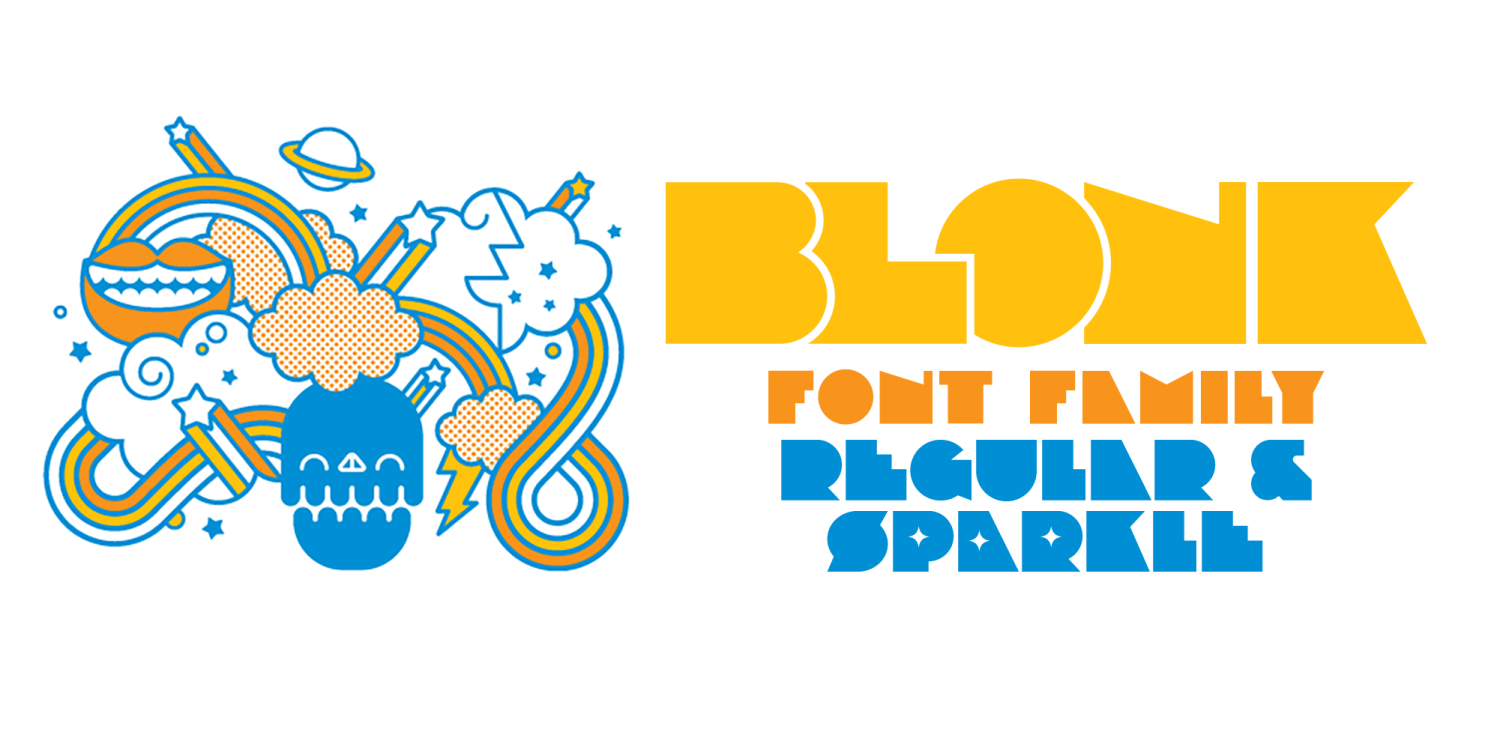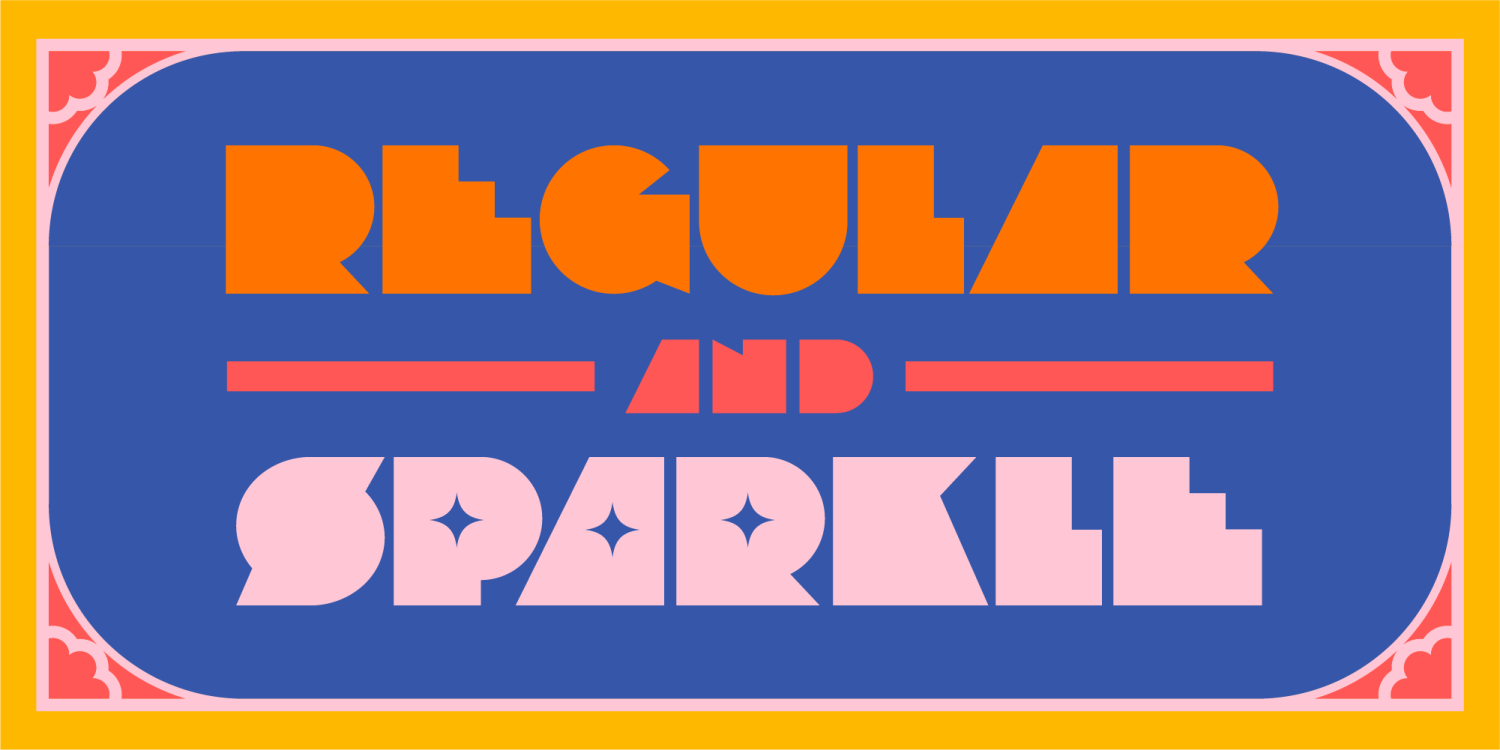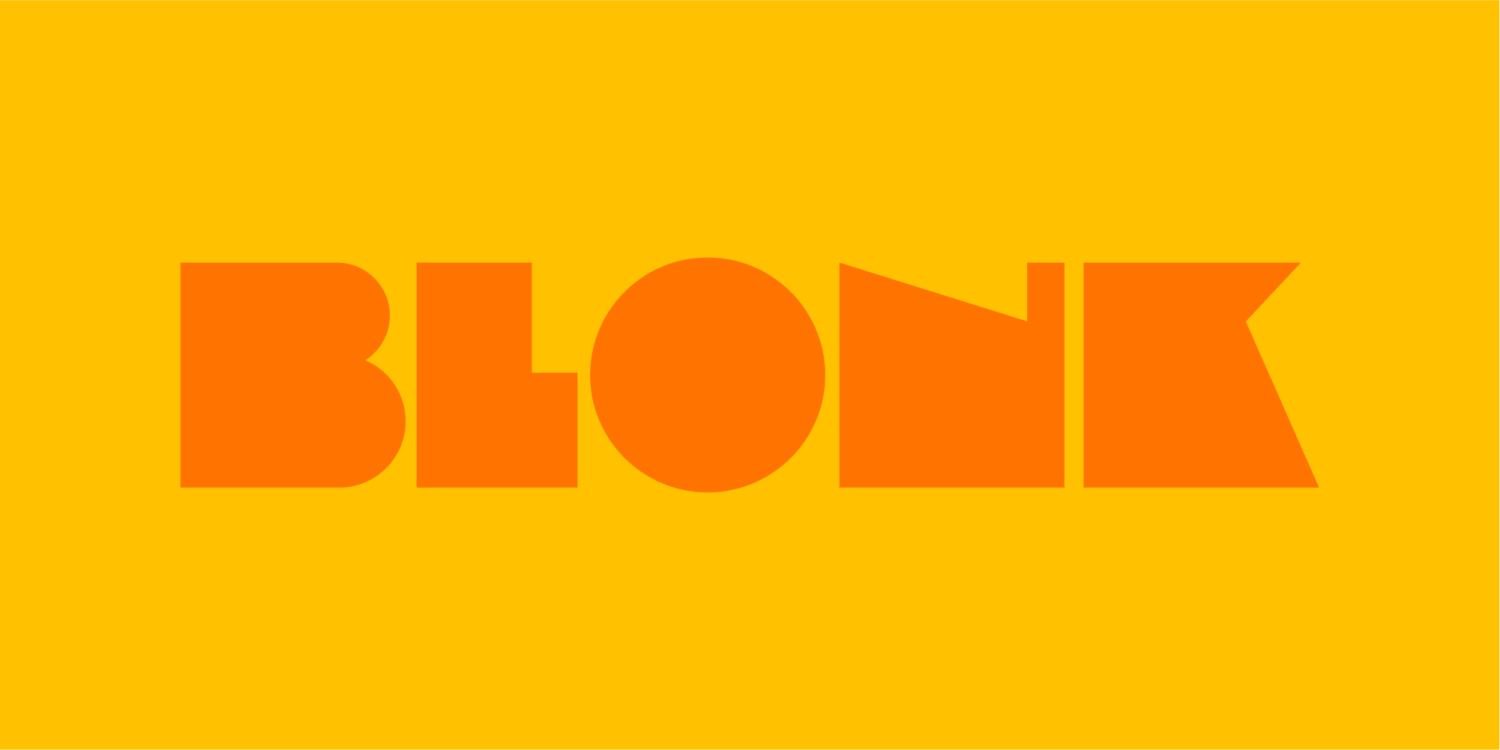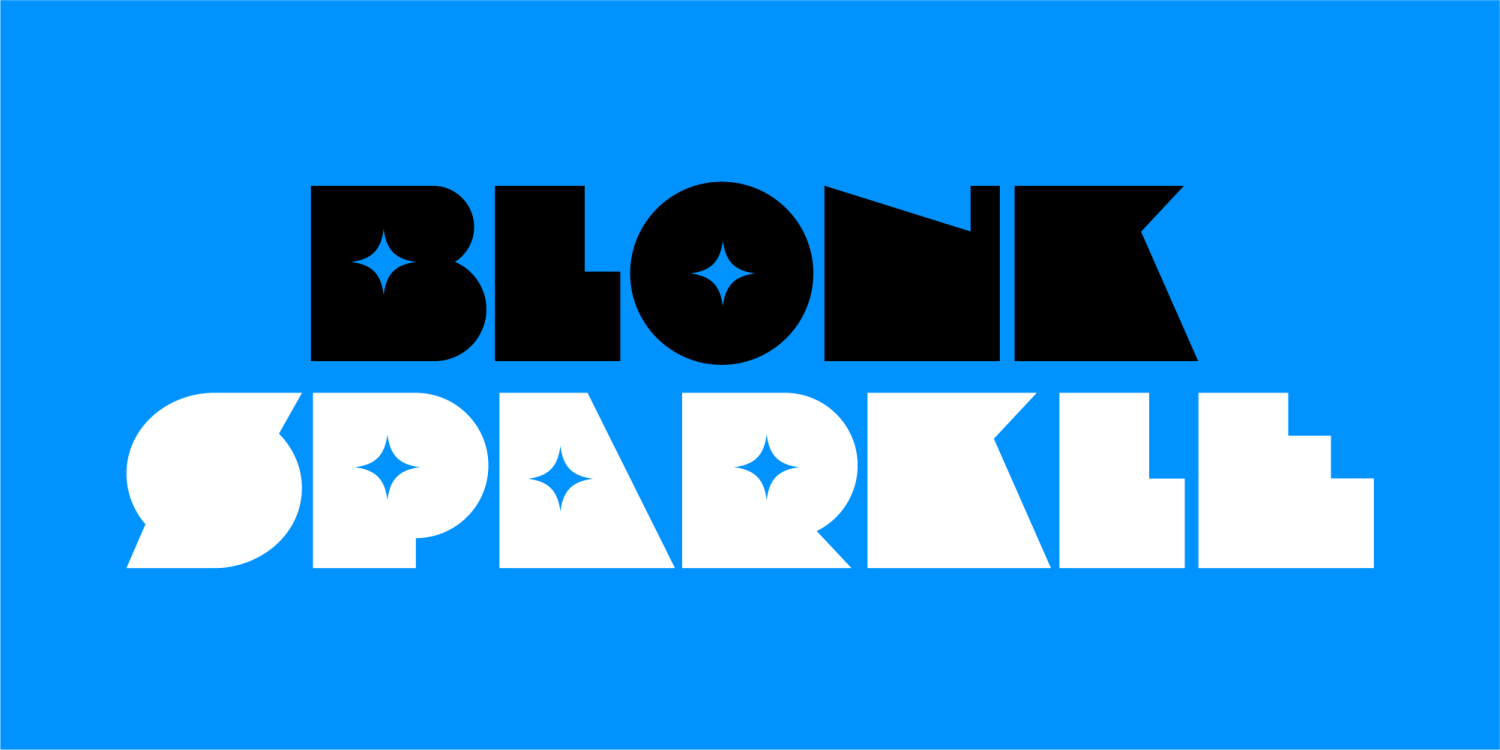
It was quite a chore coming up with a name for this baby. You'd think a font that only took a couple hours to create would have a cool name waiting in the wings, but not the case. I wanted it to be sassy, yet let people know you're dealing with a blocky font. When all was said and done, can you believe it took me 46 days to come up with this name? You can't? Well, that's your problemo. Just get this font already, make me feel like I did a good job.